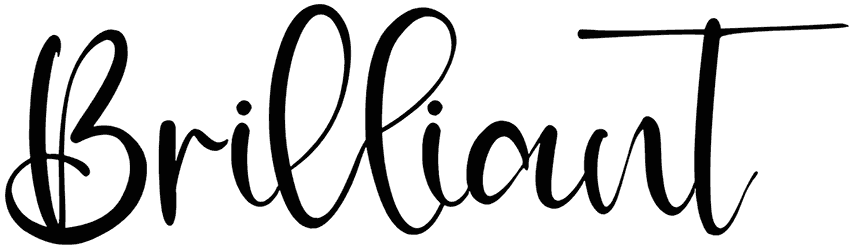
Brilliant Font
The script, handwritten font, Brilliant will stand out on books, magazines, invitation cards, lettering, and any other project that requires a classic aesthetic due to its contemporary letters and linked structure.